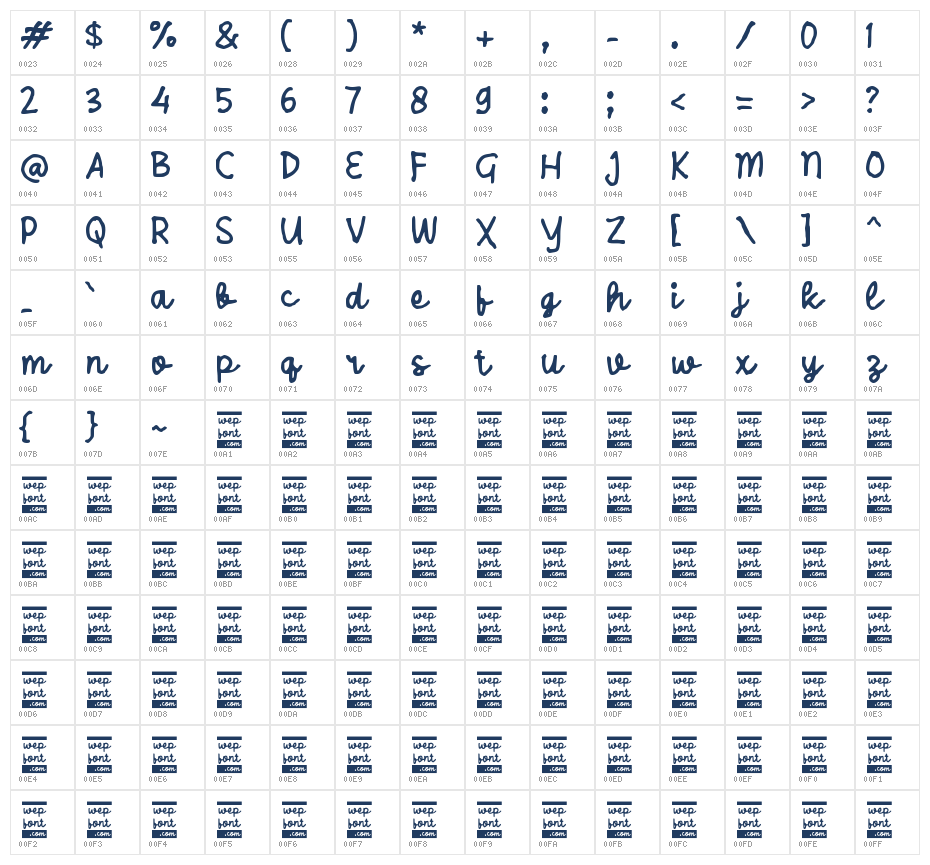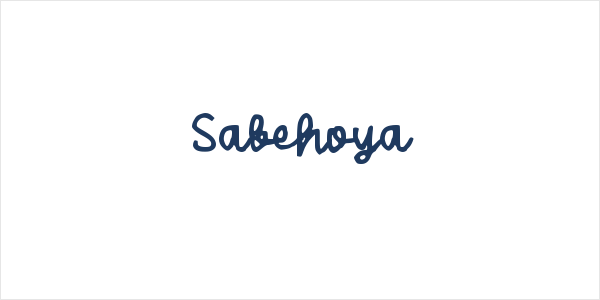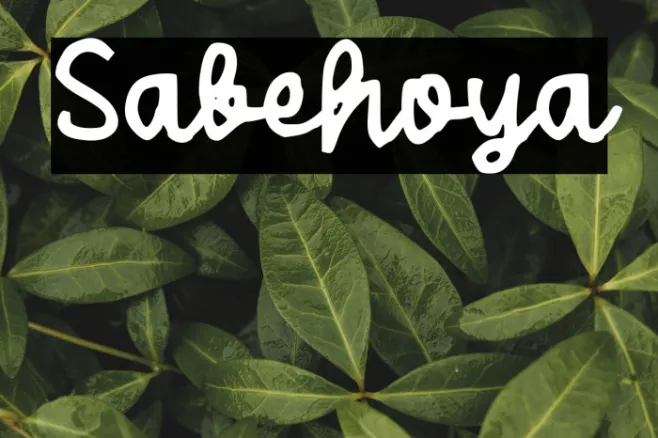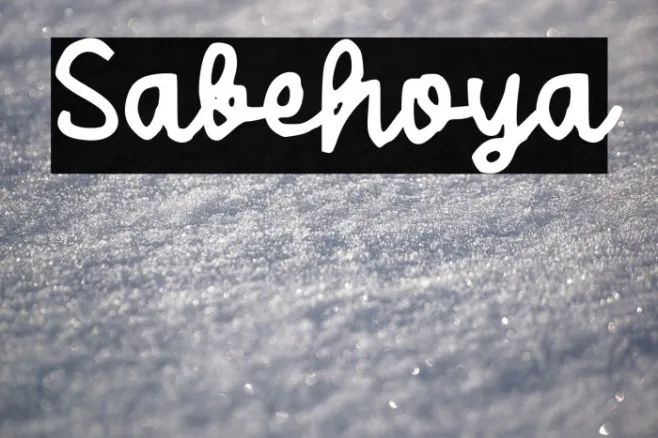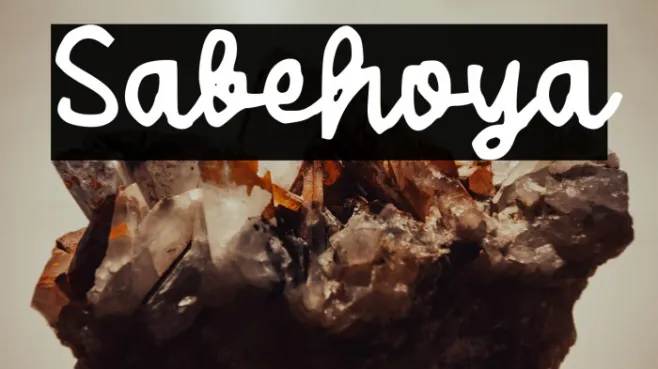
Sabehoya Font
Sabehoya Description
A playful, handwritten style font with rounded, casual letterforms.
| Overall Style | Casual, Friendly, Handwritten |